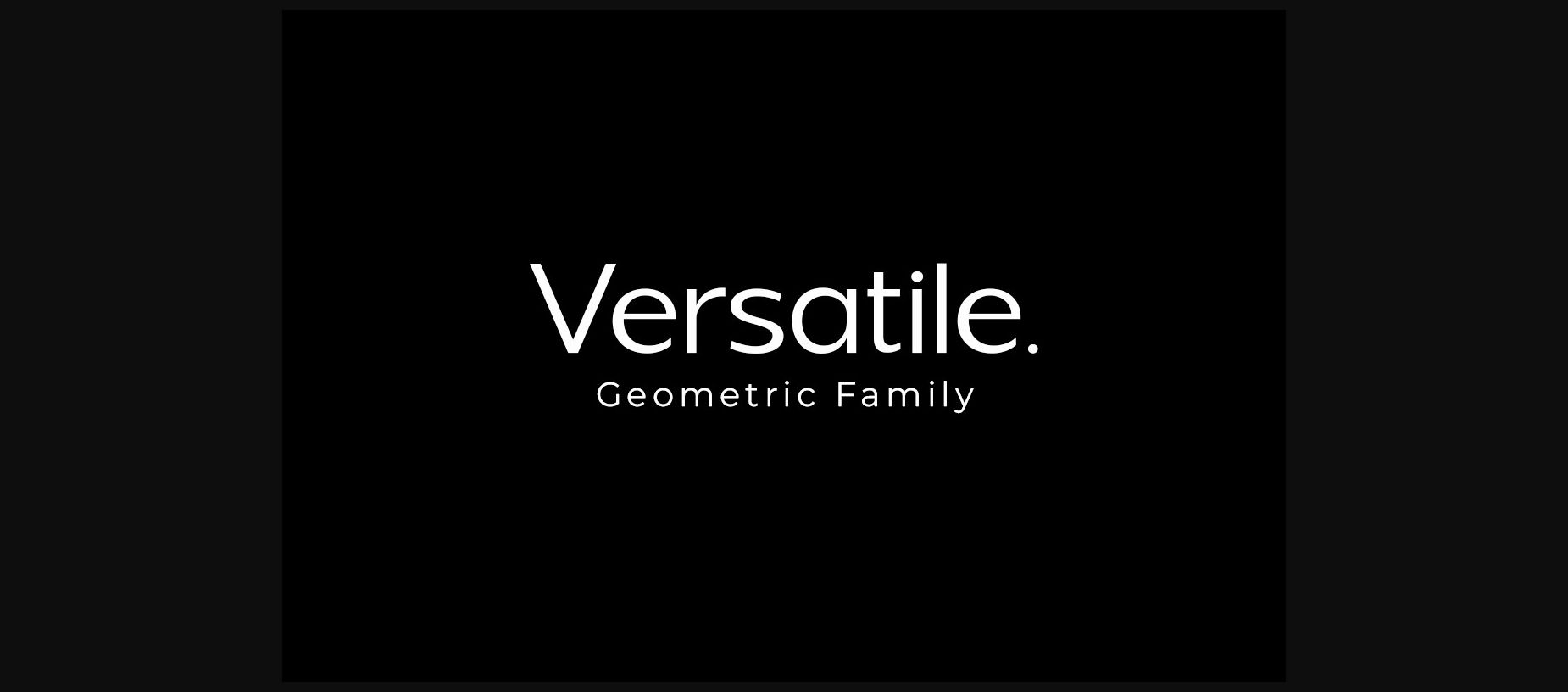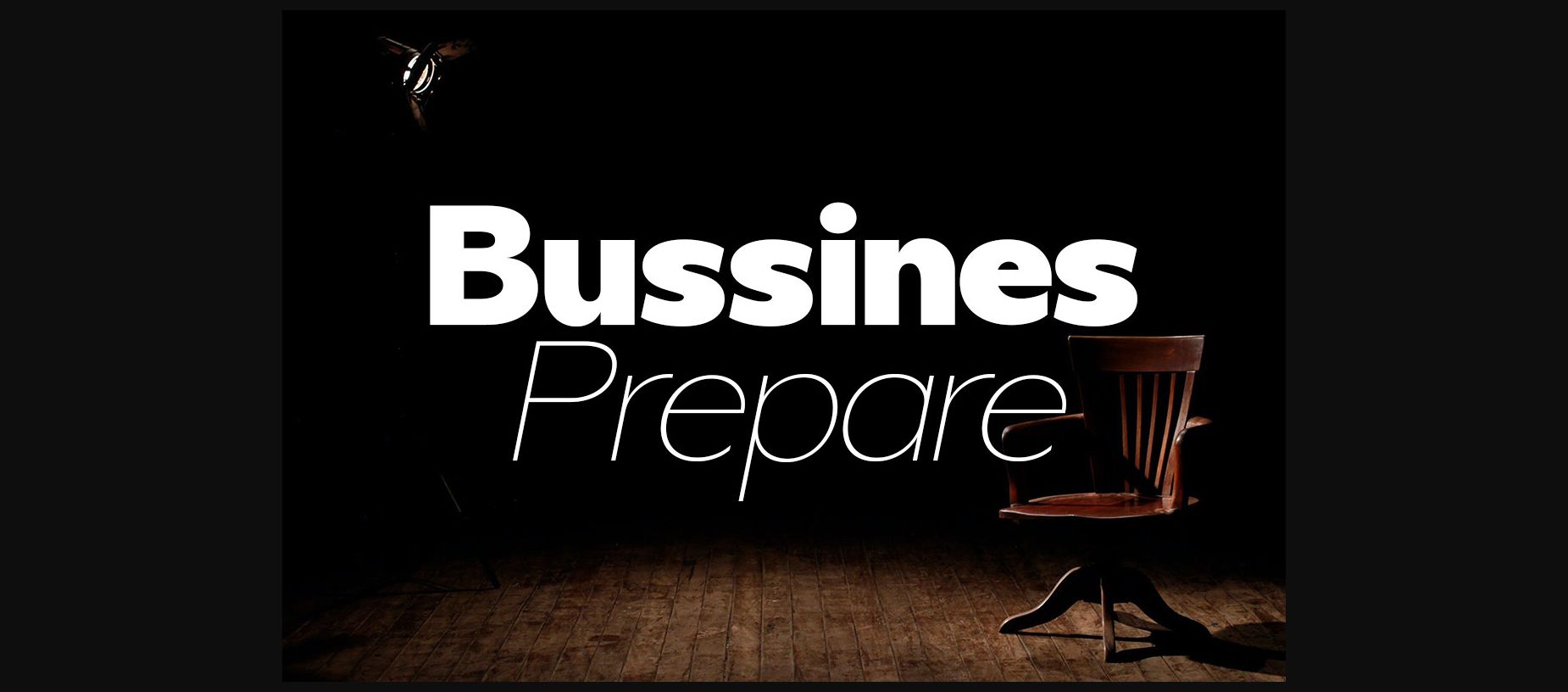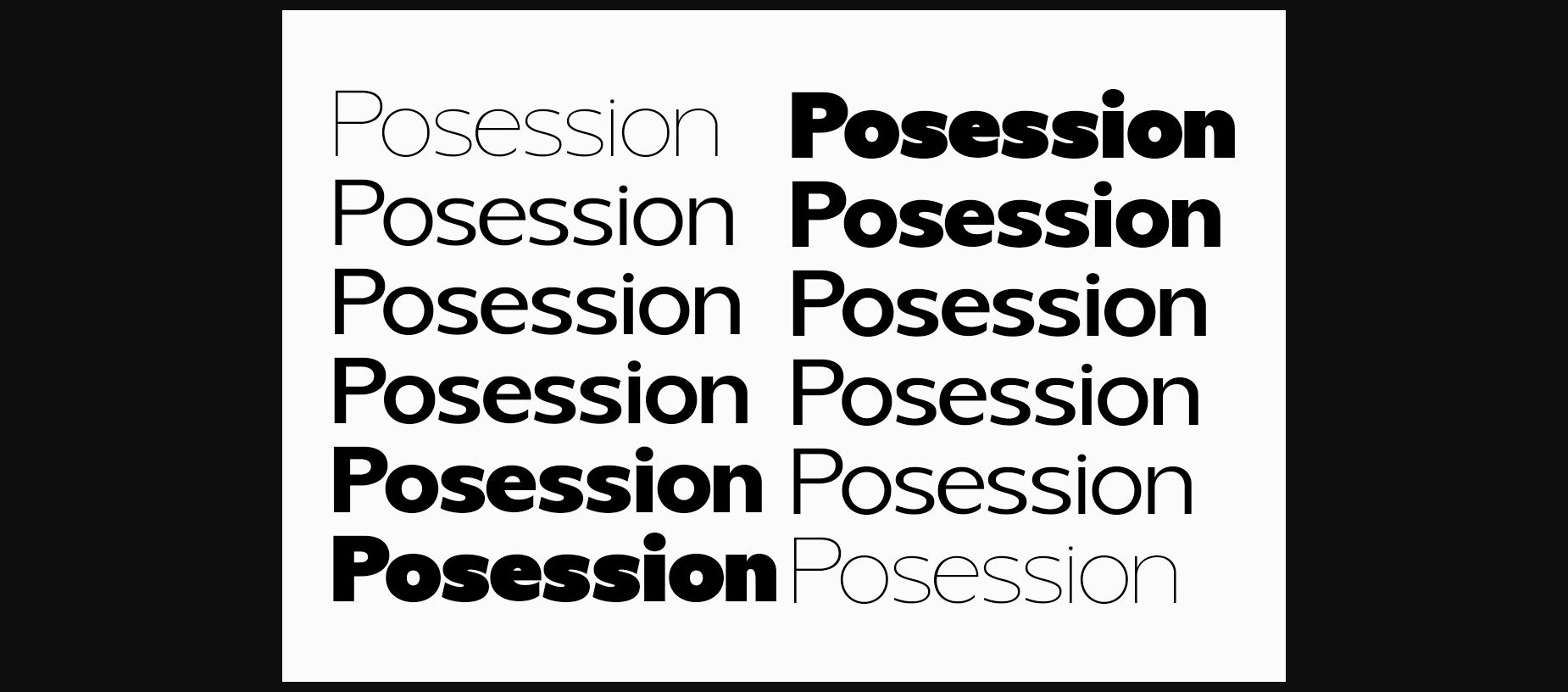
About Versatile Font
Versatile is a cutting-edge variable font that transitions seamlessly between bold and light, offering unprecedented typographic flexibility. Its dynamic design enables a smooth and engaging reading experience, making it perfect for modern digital interfaces and creative print projects. With Versatile, you have the ability to adjust font weights to match the mood and style of your content, ensuring a visually appealing presentation every time.